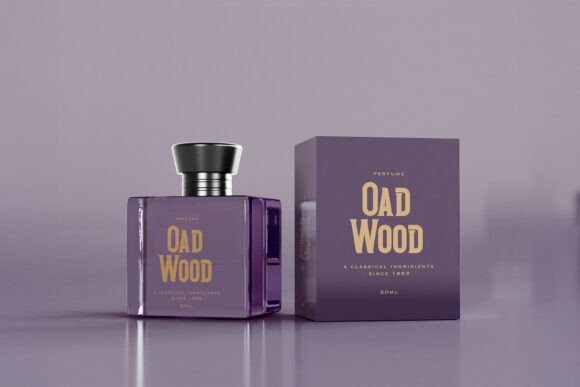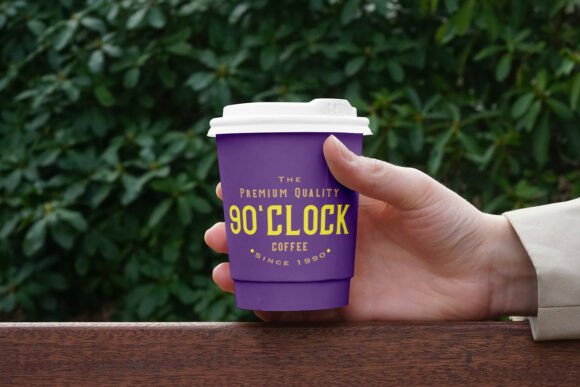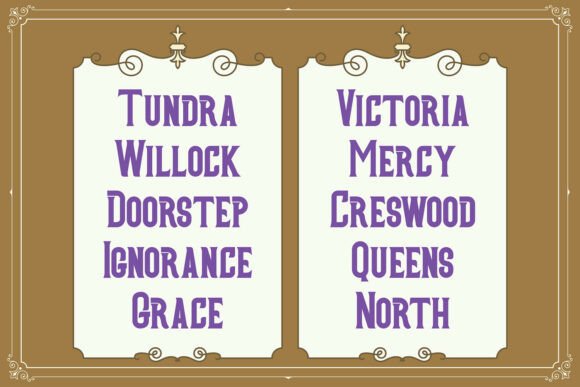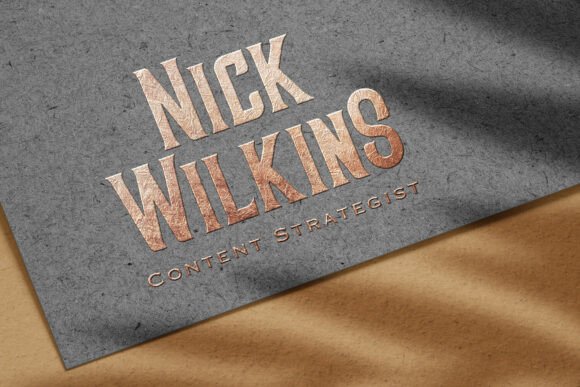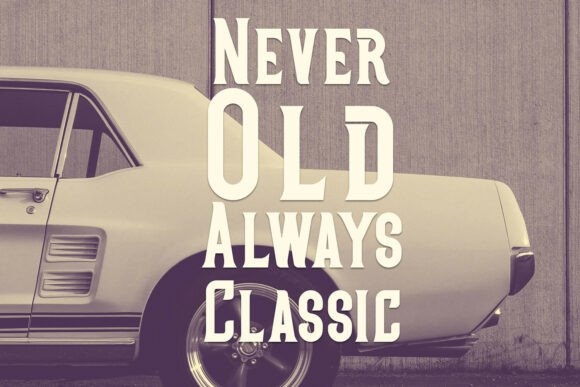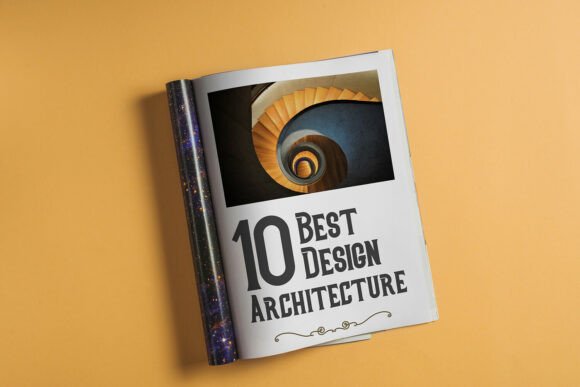
Introduction to Eurosina Font Font
Fonts play a crucial role in design, and the Eurosina Font font is a typeface that brings both character and versatility to any project. Whether you’re working on a branding project, a website, or a print design, the Eurosina Font font offers a unique style that can elevate your work.
Eurosina is a vintage serif Victorian font inspired by the elegance and decorative typography of the Victorian era.
This font is perfect for logos, branding, book covers, posters, invitations, editorial layouts, packaging, and decorative typography Eurosina brings a historical and artistic atmosphere, making it ideal for designs that aim to capture a classic vintage aesthetic.
Key Features of Eurosina Font Font
Why Choose Eurosina Font Font?
The Eurosina Font font is more than just a typeface – it’s a design tool that helps you communicate your message with style and clarity. Its unique character set and versatile design make it suitable for a wide range of applications, from elegant invitations to bold headlines.
With its carefully crafted letterforms and balanced proportions, the Eurosina Font font ensures readability and visual appeal across all mediums.
What makes Eurosina Font font special?
The Eurosina Font font stands out with its unique design, exceptional readability, and versatility across various design applications.